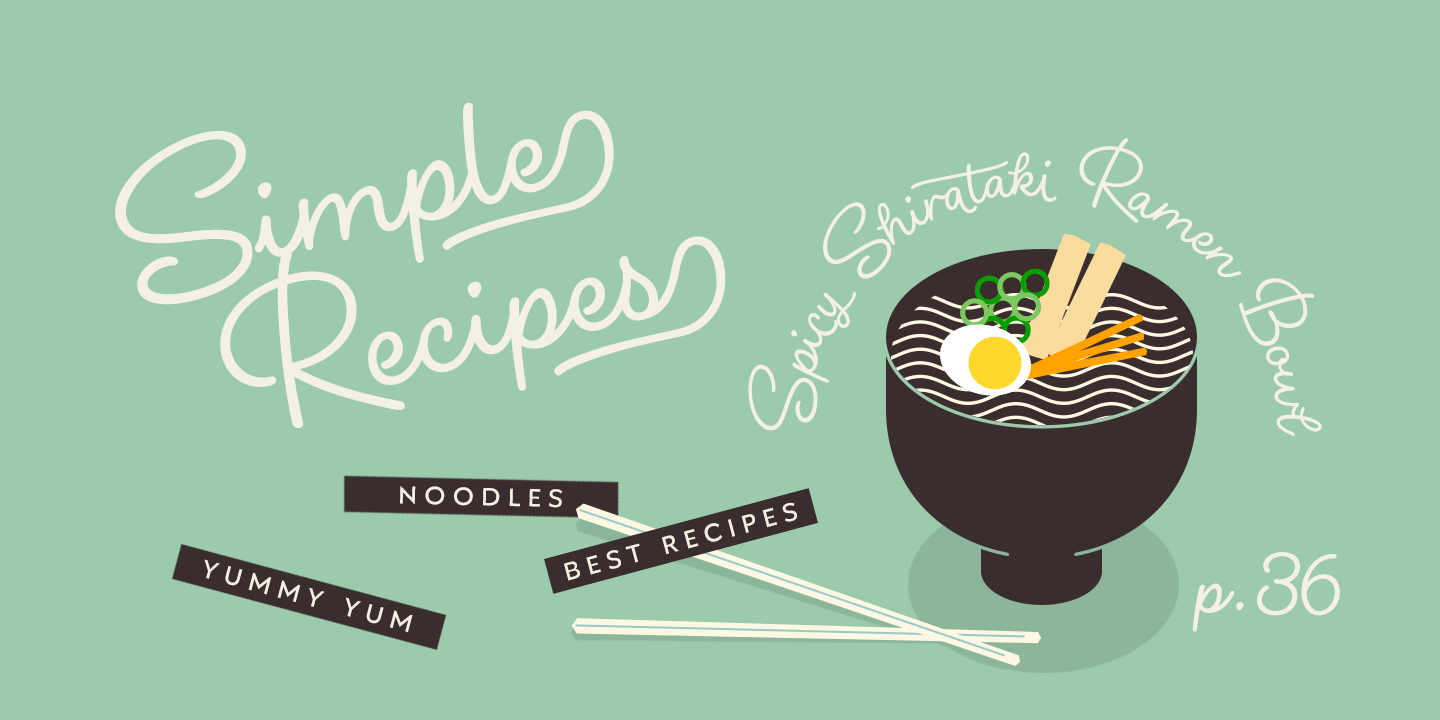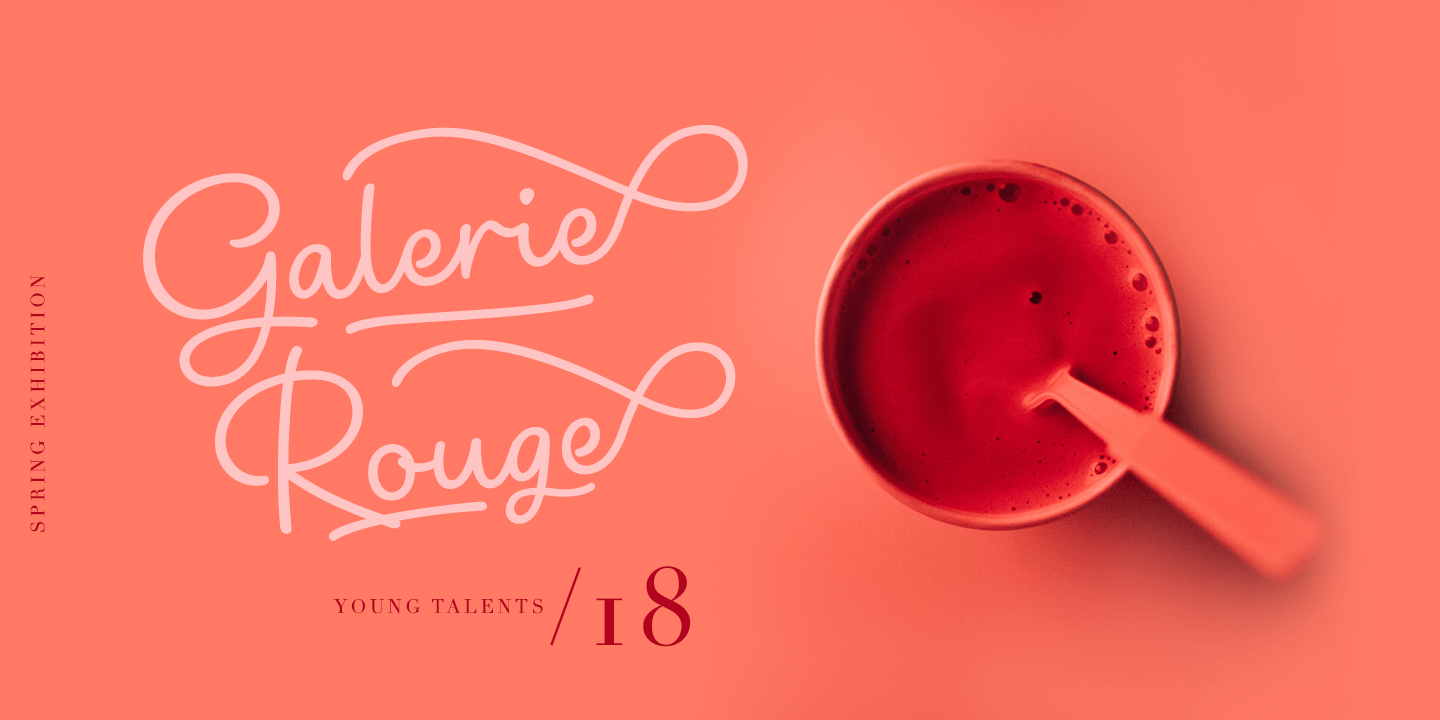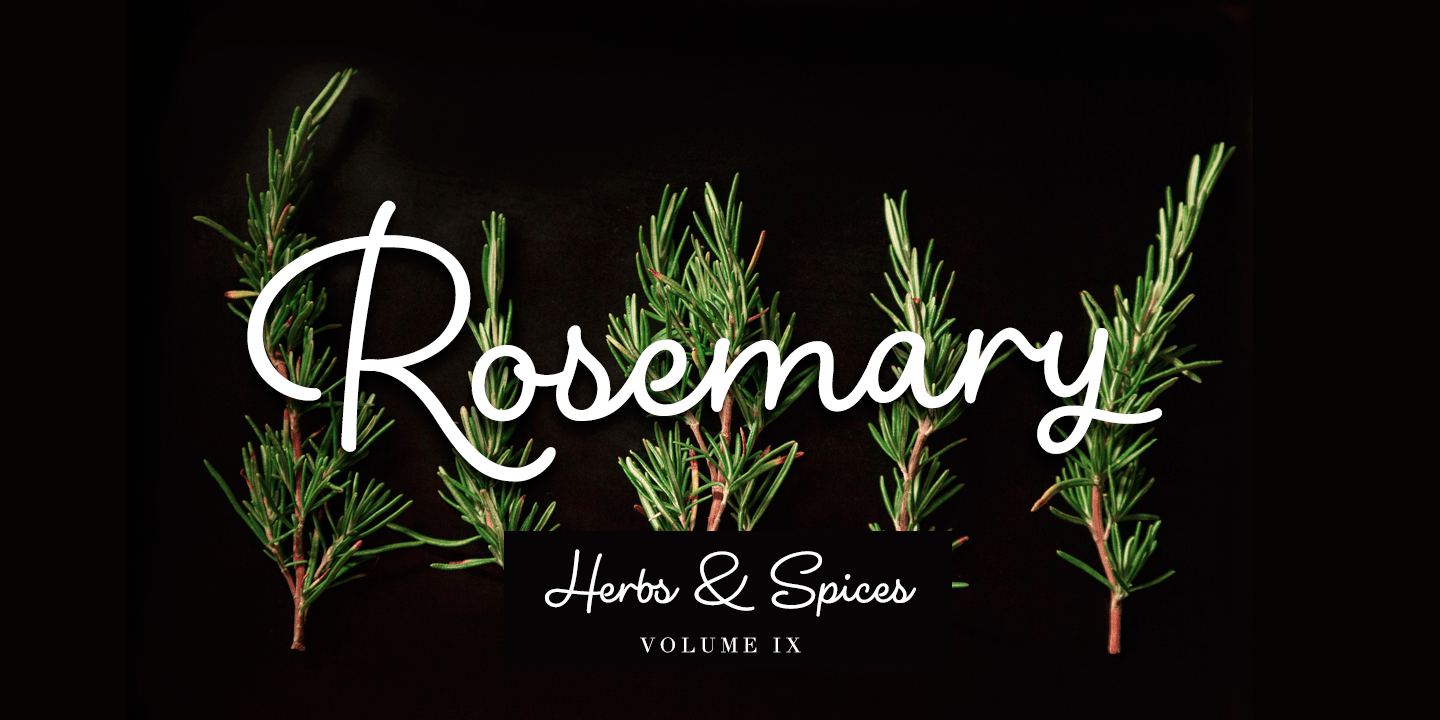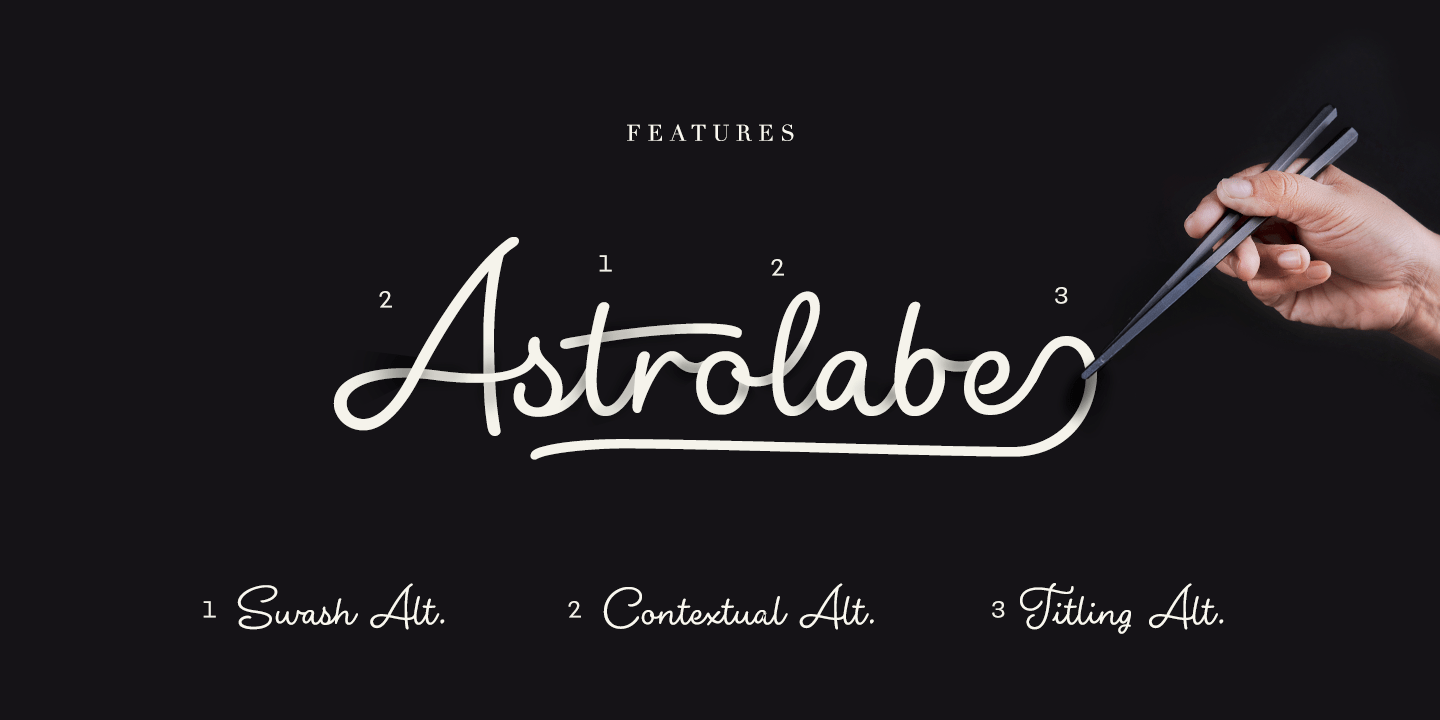
Shirataki is a soft pen script with clear round letter shapes and large display capitals. Shirataki has really low contrast -it\’s almost monolinear. Shirataki is a clear and friendly display script ideal for logo, signature, packaging, poster or headline…